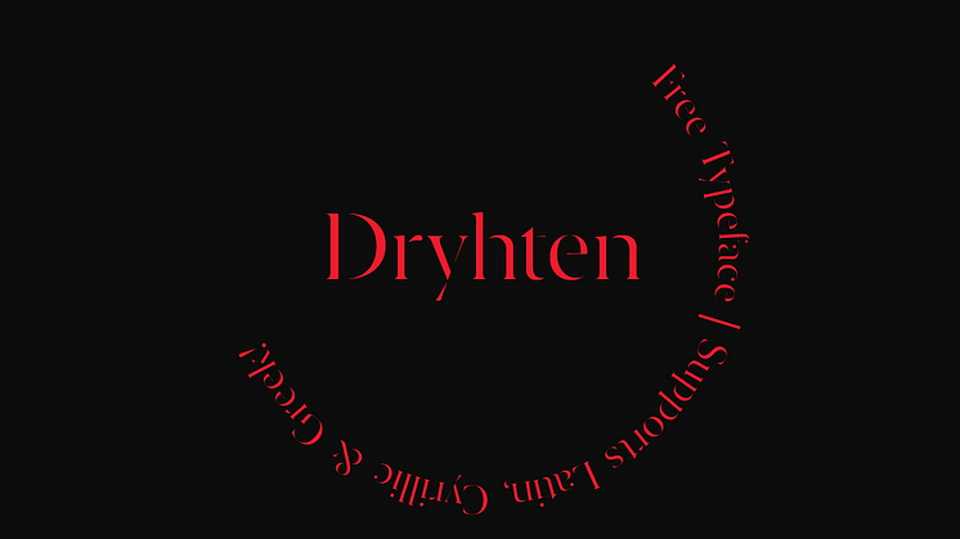
Download Dryhten font, a contemporary stencil serif typeface with own expression and poetry. Dryhten is perfectly suited for magazines headlines, branding, advertising, labels, web and packaging.
Designer: Iordanis Passas